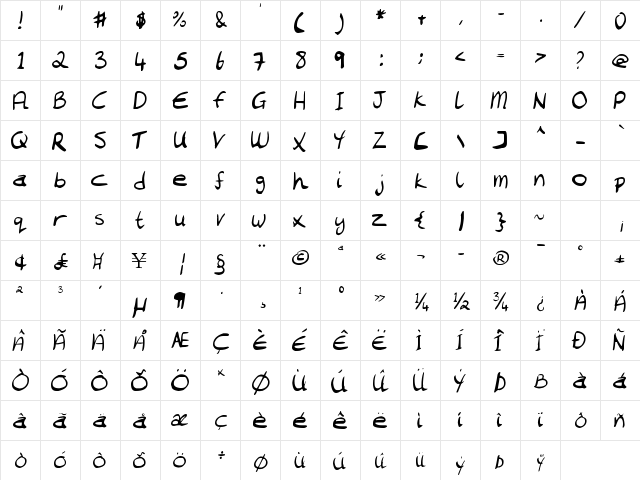
Chantell Hand Regular
Chantell Hand brings a calligraphic fluidity to the page — its connecting strokes and expressive curves give it an unmistakably human quality.
Font Pairing: Combine Chantell Hand with a simple geometric sans for maximum contrast — the tension between flowing curves and clean structure is a classic typographic pairing.
Pro Tip: Use Chantell Hand for short runs of text — names, titles, or taglines. Extended body copy in script faces tires the eye quickly.